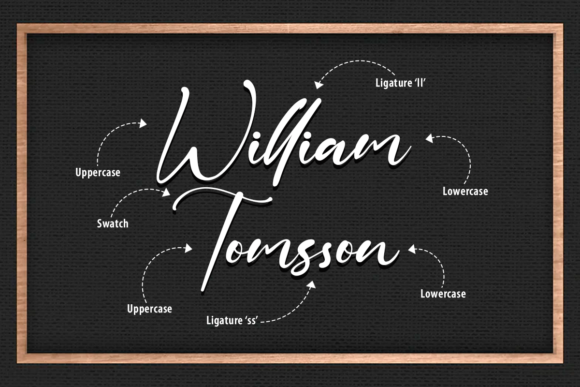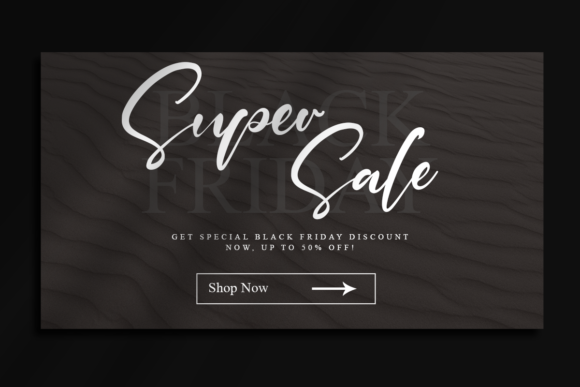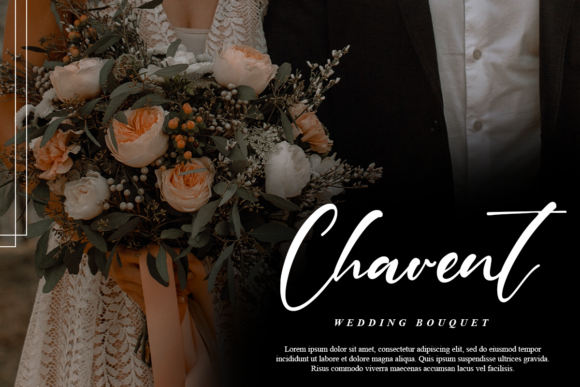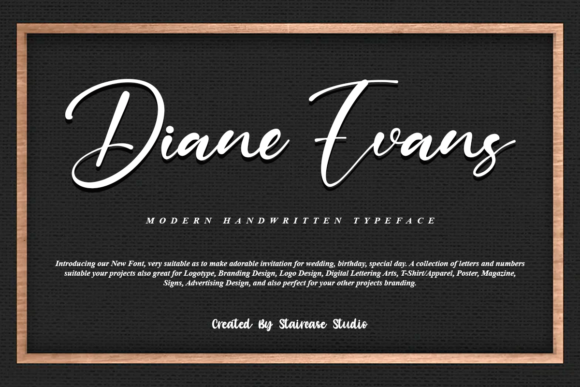
Introduction to Diane Evans Font
Diane Evans is a modern handwritten typeface perfect for logotypes, branding design, logo design, digital lettering arts, T-shirt/apparel, posters, magazines, signs, advertising design, and many more.
Add this beautiful font to your most creative designs, and watch how it captures everyone’s attention .
Key Features of Diane Evans Font
Why Choose Diane Evans Font?
Diane Evans Font offers exceptional quality and versatility, making it a valuable addition to your design toolkit. Whether you’re creating for personal projects or commercial use, Diane Evans Font delivers professional results.